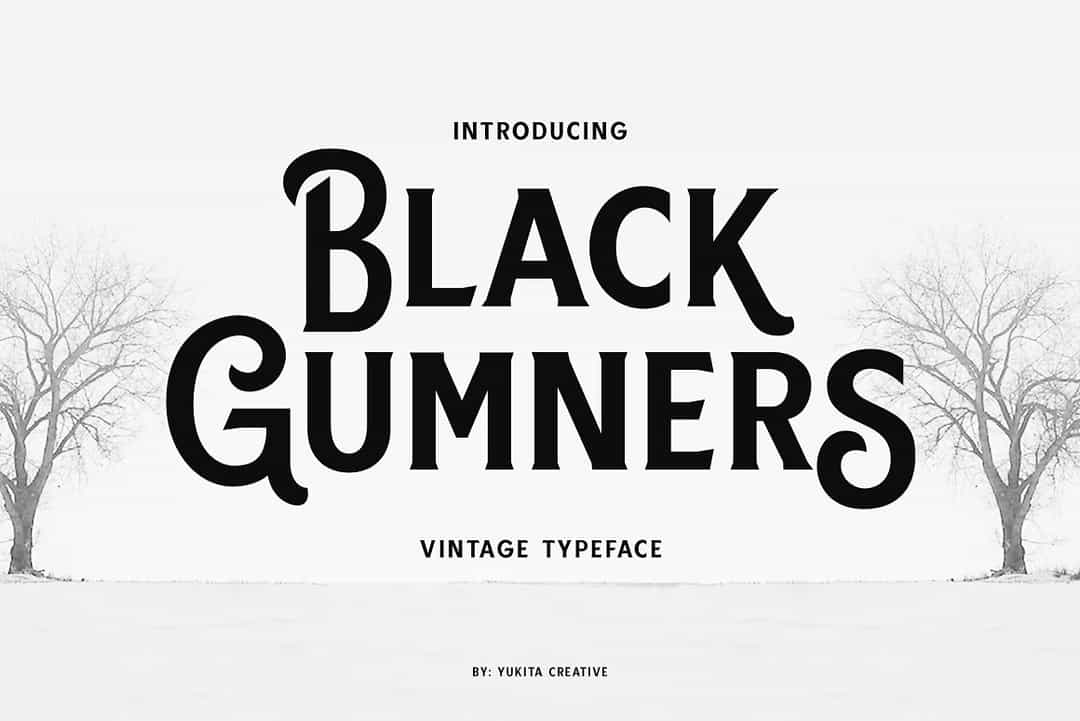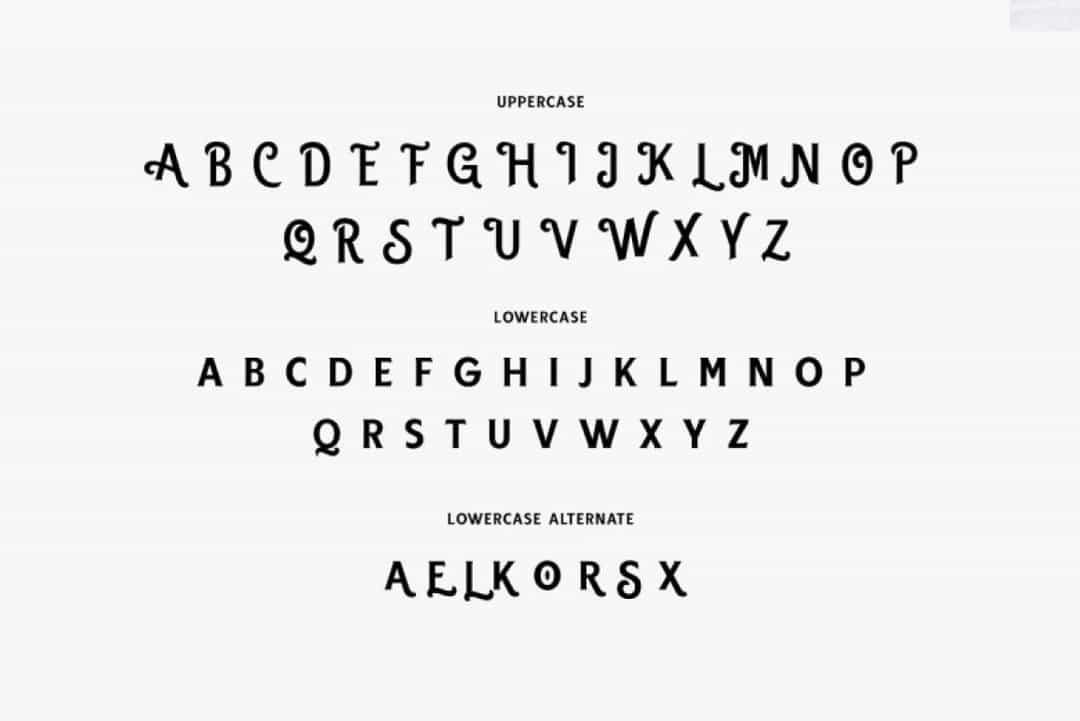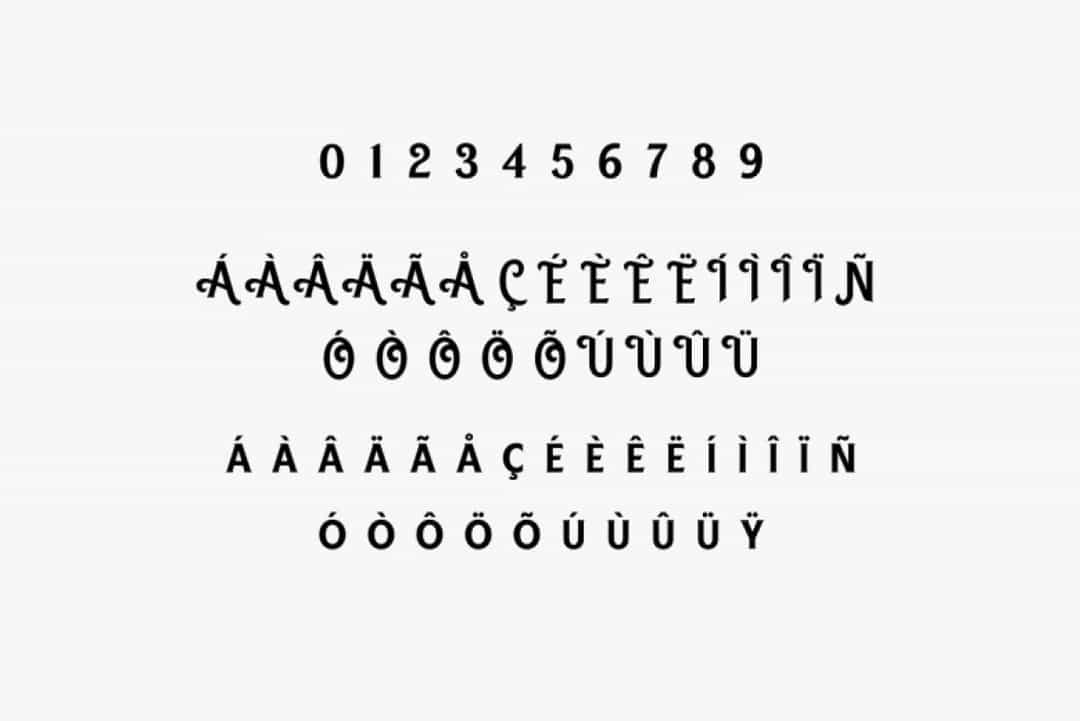
Black Gumners is an elegant vintage-style show font with its characteristic elegant and natural style that will add charm to your most creative ideas! Watch as it transforms them into works of art!